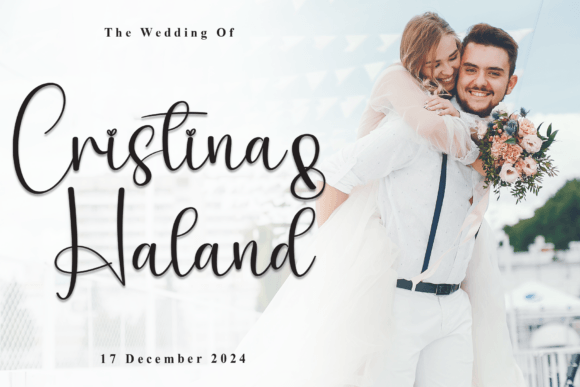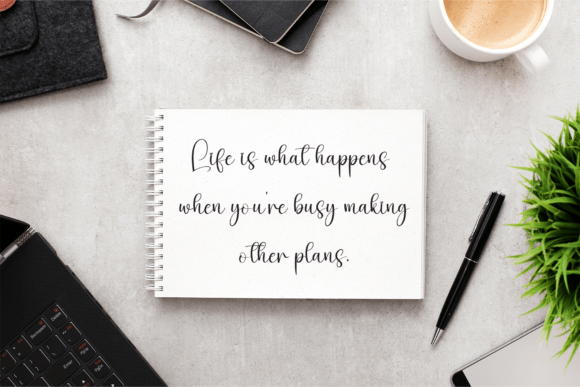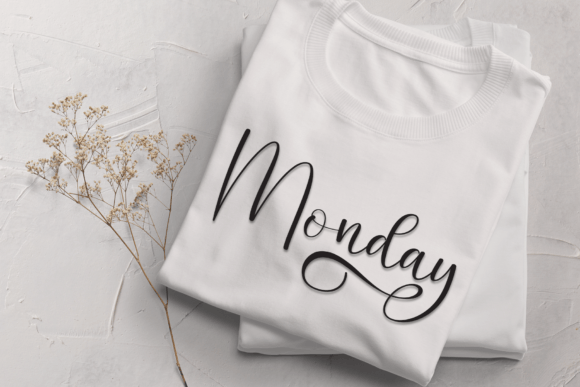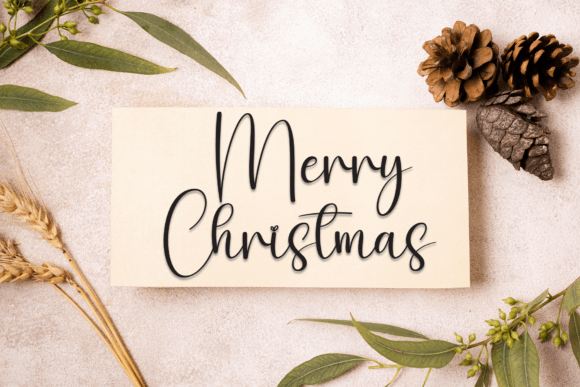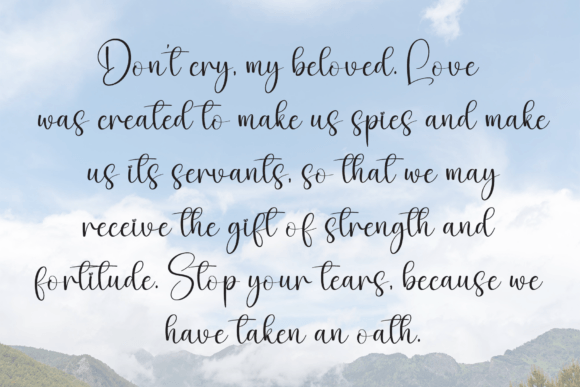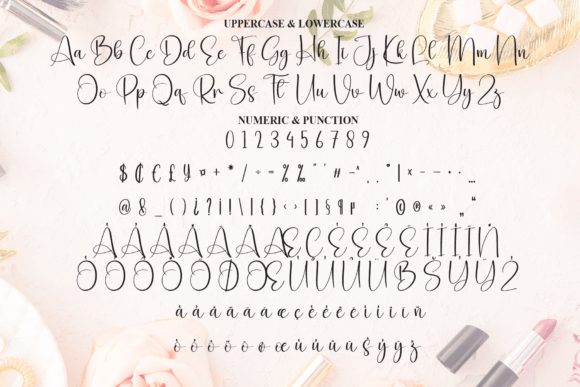
The Perfect Script: Unlocking the Beauty of Beautyday Font
As a designer, there’s no feeling quite like the thrill of creating something beautiful. You’re brainstorming ideas, experimenting with colors, and tweaking typography – and then, it happens: a spark of inspiration strikes, and your design comes alive. For me, that moment often begins with the perfect script font, one that adds a touch of elegance and sophistication to my work. Enter the Beautyday Font, a stunning handwritten script that’s about to become your new go-to.
This gorgeous font is more than just a pretty face – it’s a powerful tool for designers looking to add a personal touch to their work. With its fluid strokes and natural flow, the Beautyday Font brings a sense of warmth and creativity to any design, from invitations and branding to social media graphics. Whether you’re a seasoned pro or just starting out, this font is sure to elevate your designs and leave a lasting impression.
Beautyday Font Key Features
- Unique Characteristics: The font features a unique blend of modern and vintage elements, with intricate details and ornate flourishes that add a touch of elegance and sophistication to any design.
Beautyday Font Review
I recently had the chance to work with the Beautyday Font, and I must say it’s a unique and intriguing choice. ✨ The font’s elegant, handwritten feel makes it perfect for creative projects that need a touch of sophistication. The beauty of this font lies in its versatility, and it can be used for a wide range of applications, from branding and marketing materials to wedding invitations and social media graphics.
The font’s flexibility is also reflected in its multiple weights and styles, which allows designers to choose the perfect variant for their project. ✨ The Beautyday Font also supports a wide range of languages, making it a great choice for international projects.
- Unique, elegant handwritten feel
- Highly versatile and suitable for various projects
- Multiple weights and styles available
- Supports a wide range of languages
- Some characters may appear slightly inconsistent in terms of spacing and alignment
- The font may not be suitable for projects that require a more formal, traditional feel
Overall, I think the Beautyday Font is a great addition to any designer’s toolkit. While it may have some limitations, its unique charm and versatility make it a worthwhile choice for creative projects.
For a more elegant look, use the Beautyday Font in conjunction with a light background and subtle textures.
For a more polished look, use the Beautyday Font in conjunction with a clean and minimal design aesthetic.
For a more professional look, use the Beautyday Font in conjunction with a clear and concise design layout.
Tips for Getting the Most Out of Beautyday Font
Use the Beautyday Font in combination with high-quality images and graphics to create a visually appealing design.
Experiment with different font sizes and styles to create a unique and eye-catching look.
Use the Beautyday Font in conjunction with a strong brand identity to create a cohesive and recognizable design aesthetic.
The Beautyday Font is ideal for:
Beauty and wellness branding
Fashion and lifestyle design
Wedding and event invitations
Editorial and publishing design